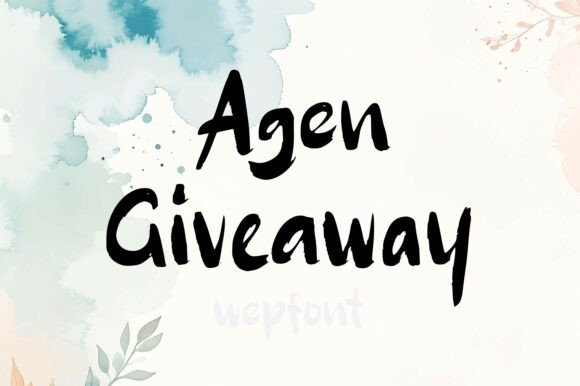
The Quest for the Perfect Font: How Agen Giveaway Stole My Heart
I still remember the design project that led me to Agen Giveaway like it was yesterday. I was working on a branding campaign for a local artisan, and I was on a mission to find the perfect font that would capture the essence of handmade craftsmanship. I scoured through font libraries, tried out dozens of options, but nothing seemed quite right. That was until I stumbled upon Agen Giveaway. ✨
I’ve been using Agen Giveaway for several projects now, and I’m excited to share my thoughts on this charming display font.
The Good Stuff:
- ✅ Unique and eye-catching: Agen Giveaway’s natural brush stroke aesthetic sets it apart from more traditional fonts.
- ✅ Versatile: It works beautifully for branding, headlines, social media graphics, and artistic invitations.
- ✅ Elegant and sophisticated: Despite its handcrafted feel, Agen Giveaway exudes a sense of understated elegance.
- ✅ Easy to read: The font’s organic letterforms flow smoothly, making it a joy to read.
A Few Quirks:
- ⚠️ Limited use cases: While Agen Giveaway is incredibly versatile, it’s best suited for display purposes rather than body text.
- ⚠️ Requires careful pairing: To get the most out of Agen Giveaway, it’s essential to pair it with complementary fonts and colors.
- 🤔 Some glyph limitations: While the font has a range of OpenType features, some users may find the glyph selection limited.
The Story Behind Agen Giveaway
Agen Giveaway was inspired by the soft fluidity of watercolor paintings and the clean lines of minimalist design. Its creator aimed to craft a font that would bring a touch of handcrafted artistry to digital designs. The result is a charming display font that embodies a free-spirited yet elegant charm.
| Font Name | Agen Giveaway Font |
| Author | wep – Wahyu Eka Prasetya |
| What inspired the creation of Agen Giveaway? | Agen Giveaway was inspired by the soft fluidity of watercolor paintings and the clean lines of minimalist design. |
| Is Agen Giveaway suitable for body text? | No, Agen Giveaway is best suited for display purposes rather than body text. |
And that’s it! Agen Giveaway is a stunning display font that can add a touch of handcrafted artistry to your designs. With its natural brush stroke aesthetic and elegant charm, it’s perfect for creative projects that require a unique, human touch. 🎨